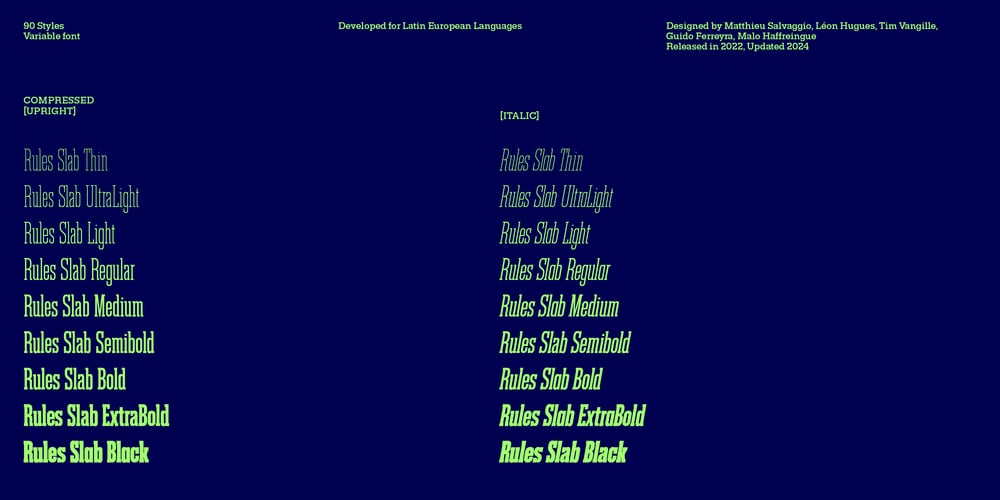
Rules Slab Variable
Rules Slab Variable font
Rules Slab Variable Font Family was designed by Léon Hugues, Matthieu Salvaggio, Tim Vanhille, Malo Haffreingue and published by Blaze Type. Rules Slab Variable contains 1 styles and family package options. Rules Slab is the Slab renewal of the Rules font family. Thought has the “go to” typeface for any designers who love to use slab fonts in their project.Updated in 2024 after an extensive work on the overall structure of the font family to bring forward a wider range of possibilities in terms of axis, weights and width. Rules font is a contemporary interpretation of the neo grotesque font era, with an edge. Rooted in Swiss Modern type inspiration and built with a strong structure in the respect of type design tradition. Rules font features modern capitals (optically-matching widths). Next to no contrast in counter-forms. Closed edged terminals and an elegant twist bringing a colorful aspect to optical gray in text layouts. The whole font family is topped off with squared endings, giving the whole font family a great pace.Rules font is a modern neo-grotesque font family with an edge.This font family was especially thought for body texts in print, web & app uses and still performs greatly when used as a main headline or display fonts for posters as well as in signage system.